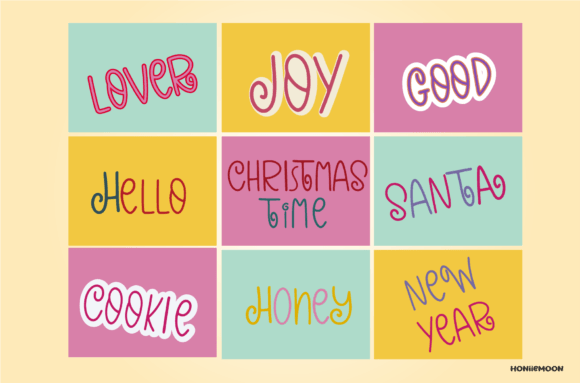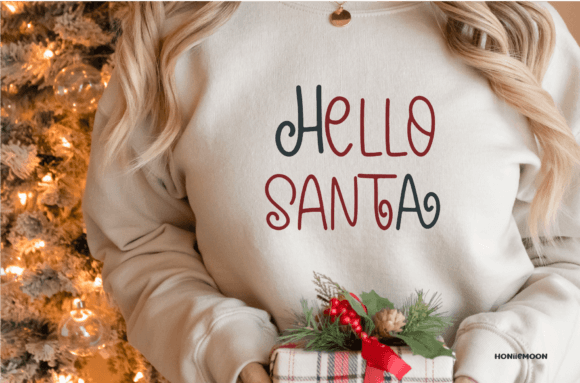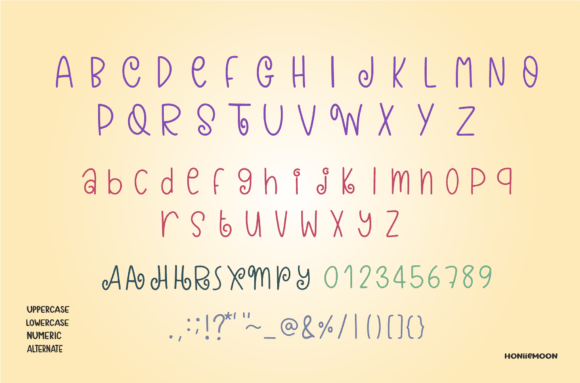
Introduction to Cream Soda Font
As a designer, have you ever found yourself staring at a blank canvas, desperately searching for the perfect font to bring your creative project to life? The moment of truth has finally arrived, as we introduce you to the delightful Cream Soda Font. This charming handwritten font is sure to add a dash of whimsy and personality to your designs.
With its playful, cursive script, the Cream Soda Font is perfect for designers looking to add a touch of fun and elegance to their work. Whether you’re creating a logo, a social media graphic, or a promotional poster, this high-quality font is sure to elevate your design to the next level. And the best part? It’s available for free download, making it an invaluable resource for designers of all levels.
Key Features of Cream Soda Font
- Unique Hand-Drawn Design: The Cream Soda Font boasts a distinctive hand-drawn style, making it an ideal choice for creative projects requiring a personal touch.
- Large Character Set: With a comprehensive character set, including uppercase and lowercase letters, numbers, and punctuation marks, you’ll have everything you need for your creative project.
- Perfect for Designers and Artists: The Cream Soda Font is an excellent addition to any designer’s or artist’s toolkit, offering a unique and versatile design resource.
Honest Review: Cream Soda Font
I recently stumbled upon the Cream Soda Font while searching for a unique design resource for a creative project. I was immediately drawn to its playful and nostalgic feel, reminiscent of old-fashioned soda labels.
However, I did encounter a few limitations ⚠️
- Limited character set: The font only includes a limited character set, which may not be suitable for longer texts or complex designs.
- No bold or italic versions: I found it a bit inconvenient that the font doesn’t come with bold or italic versions, which can be useful for emphasis or contrast.
Overall, I’m impressed with the Cream Soda Font’s unique style and high-quality design. While it may have some limitations, it’s a great resource for designers looking for a fun and nostalgic feel for their creative projects.
The Cream Soda Font is suitable for a variety of creative projects, including branding, marketing materials, and social media graphics. Its high-quality design makes it an ideal choice for presentations, posters, and flyers.